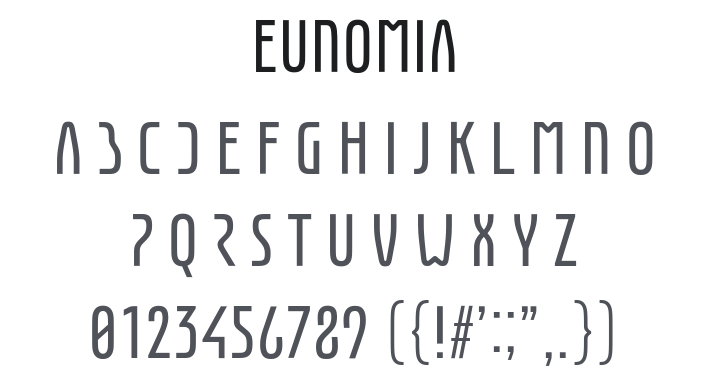
Eunomia Font Family
About Eunomia
Eunomia is a tall, narrow display font based on a logotype originally released on JAYPEG. Certain characters—such as A, D, and P—have been simplified to evoke a sci-fi aesthetic.
In terms of design, the font goes beyond merely connecting geometric circles and straight lines; careful visual adjustments were made to individual characters—particularly the curves—to ensure a smooth, natural look and avoid any awkwardness.